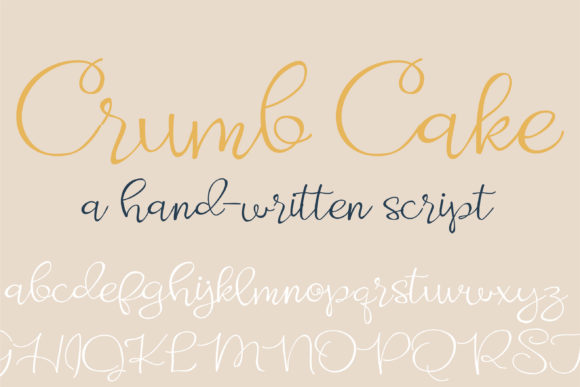
ZP Crumb Cake is the most graceful script font you'll ever lay your eyes on. It dances across digital pages with an elegance that will make your heart flutter. This flowing, delicate font was handcrafted by the talented team at Illustration Ink, and it's perfect for projects that demand a touch of romance and charm.
With ZP Crumb Cake, you can create stunning designs that will capture attention and leave a lasting impression. Whether you're crafting invitations for a special occasion, designing social media graphics, or simply adding a personal touch to your website, this font will elevate your work to new heights.
ZP Crumb Cake is incredibly versatile, lending itself beautifully to a wide range of projects. Its lovely curves and whimsical flourishes add a touch of magic to everything it graces, from elegant wedding invitations to playful social media posts. With its ability to transform ordinary words into extraordinary works of art, ZP Crumb Cake is the perfect choice for designers, crafters, and anyone who loves to express themselves through the written word.
Indulge in the captivating allure of ZP Crumb Cake, and let your designs blossom with creativity and grace. From heartfelt letters to enchanting invitations, the possibilities are endless with this font that truly captures the essence of romance and beauty.